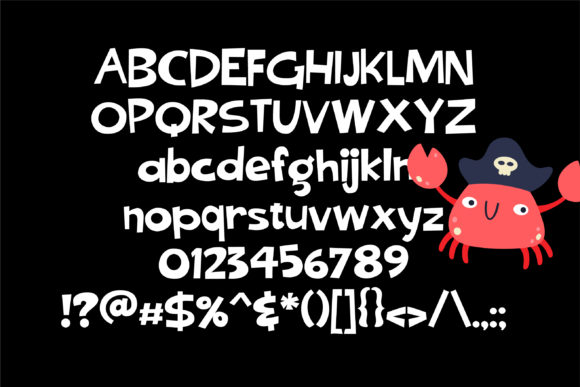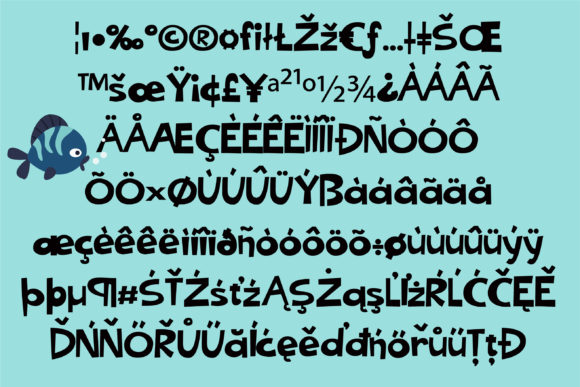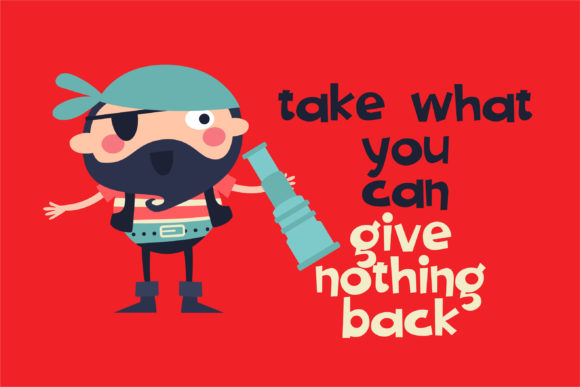
Introduction to Captain Calvin Font
Have you ever stared at a blank canvas, desperately searching for the perfect font to bring your creative project to life? That’s exactly where I found myself a few months ago, trying to design a poster for a local art event. After hours of browsing through various design resources, I stumbled upon the charming Captain Calvin Font, and my design woes were over.
With its playful and modern sans serif design, the Captain Calvin Font is perfect for titles, displays, and posters. Its versatility and high-quality aesthetic make it an invaluable resource for designers of all levels. Whether you’re working on a free download project or a commercial design, this font is sure to elevate your creative work.
Key Features of Captain Calvin Font
- Unique, hand-drawn design perfect for creative projects requiring a personal touch.
- Includes a comprehensive character set, including uppercase and lowercase letters, numbers, and punctuation marks.
- Designed to work well in a variety of contexts, from advertising and marketing materials to digital products and websites.
- Perfect for designers and artists seeking a distinctive, high-quality design resource for their next creative project.
Honest Review: Captain Calvin Font
I recently stumbled upon Captain Calvin Font, and I’m excited to share my honest review with you. This font has been a great addition to my design arsenal.
- ✨ The design is clean and modern, perfect for creating high-quality visual content.
- ⚠️ The font may not be suitable for formal or professional projects, as it has a more casual and playful tone.
- ⚠️ Some users may find the font a bit too bold or attention-grabbing, which can be overwhelming in certain contexts.
Overall, I’m impressed with Captain Calvin Font. It’s a great addition to any design resource library, and it’s perfect for creative projects where you want to add a touch of personality. With its modern design and transparent background, it’s easy to use and customize to fit your needs.
Tips for Getting the Most Out of Captain Calvin Font
Here are some tips for getting the most out of Captain Calvin Font:
- Use it in combination with other design elements to create a cohesive look.
- Experiment with different font sizes and styles to add visual interest.
- Use it in creative projects, such as logos, business cards,